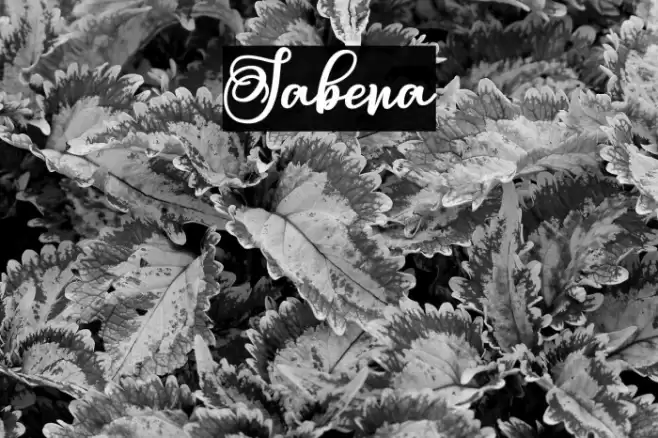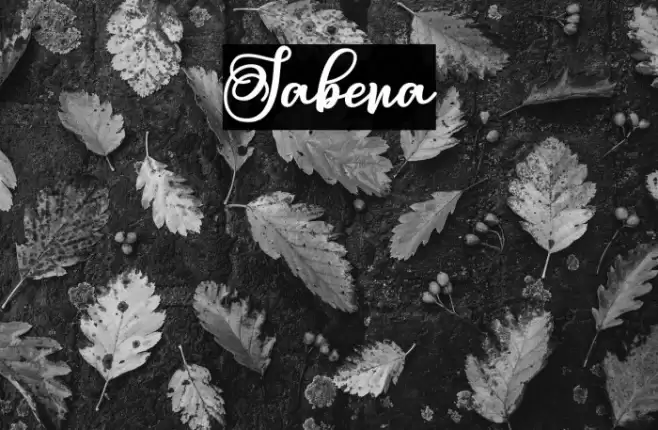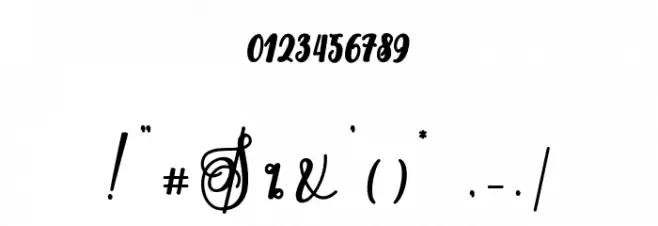
Sabena Font
Sabena Description
This elegant script font features ornate, flowing characters with a classic and sophisticated appeal. The uppercase letters are adorned with intricate swirls and loops, giving them a decorative flair. The lowercase letters maintain a smooth, cursive style that complements the uppercase, creating a harmonious balance. The numerals are clear and consistent with the overall style, while the special characters are uniquely crafted to match the font's aesthetic. This font exudes a sense of luxury and refinement, making it ideal for formal and creative applications.
An elegant script font with ornate, flowing characters and a classic appeal from Regular fonts.
- Proposed Projects: Ideal for wedding invitations, luxury branding, greeting cards, and elegant signage.
- Overall Style: Classic
- Use Case: Logos, Invitations, Decorative text